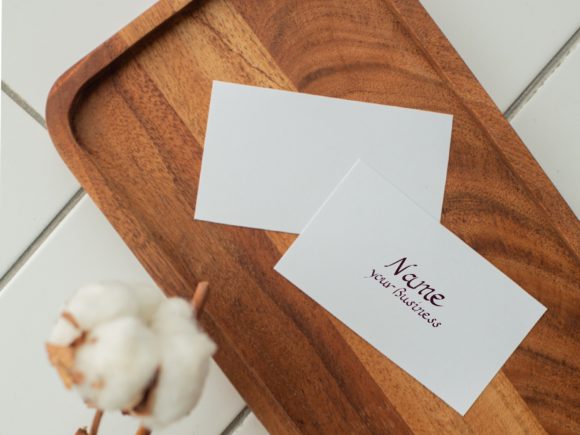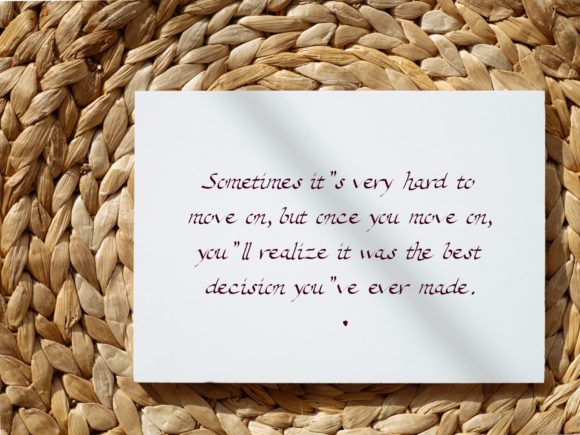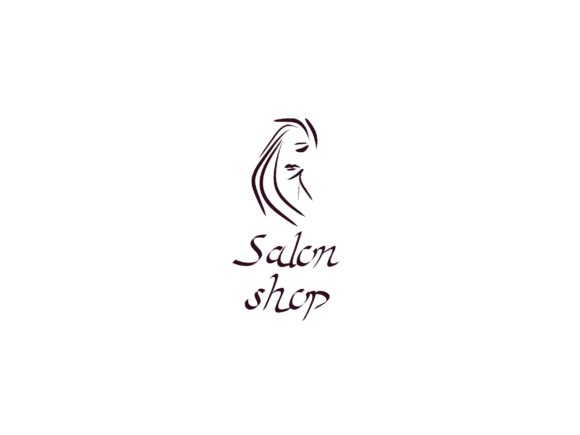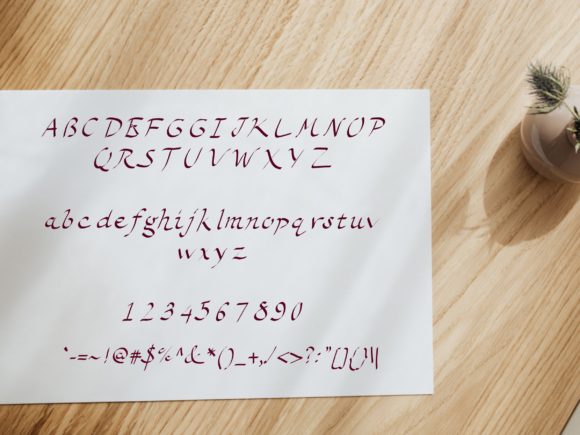
Introduction to Casual Luxe Font
Have you ever stumbled upon the perfect font while working on a creative project, and it elevates the entire design to a whole new level? That’s exactly what happens when you discover the Casual Luxe Font. This elegant scripT font is a game-changer for designers who want to add a touch of sophistication to their work.
As a valuable design resource, the Casual Luxe Font is perfect for creating high-quality logos, cards, and other projects that require impressive typography. With its balanced and varied style, this font is sure to impress. Whether you’re a seasoned designer or just starting out, the Casual Luxe Font is an essential addition to your design arsenal.
Key Features of Casual Luxe Font
- High-quality design resource perfect for creative projects, offering a sophisticated and elegant feel.
- Unique characteristic: A subtle, hand-drawn feel that adds a touch of personality to any design project.
Honest Review: Casual Luxe Font
As a designer, I’m always on the lookout for high-quality design resources that can elevate my creative projects. Recently, I stumbled upon the Casual Luxe Font, and I must say, it’s been a game-changer for me.
- Unique and stylish aesthetic that’s perfect for modern designs
- Great for creating professional-looking headings and titles in my designs
However, I did encounter a few limitations with this font. 🚨
- Limited character set, which might not be suitable for long-form content
- Not ideal for small text sizes, as it can get quite pixelated
Overall, I’m really impressed with the Casual Luxe Font. Its unique style and high-quality design make it an excellent addition to any designer’s toolkit. With a few minor limitations in mind, I’d highly recommend this font for any creative project that requires a touch of elegance and sophistication.
Casual Luxe Font
Tips for Getting the Most Out of the Casual Luxe Font
Use the Casual Luxe Font in combination with a transparent background to create a clean and modern design. Experiment with different font sizes, colors, and combinations to find the perfect look for your creative project. You can also use this font in conjunction with other design resources to create a cohesive and high-quality design.
The Casual Luxe Font is ideal for use in branding materials, such as logos, business cards, and letterheads. It’s also a great choice for use in web design, social media graphics, and other digital design projects. With its high-quality, free download, and transparent background, this font is a valuable design resource for any creative project.
What is the recommended font size for using the Casual Luxe Font in a design project?
The recommended font size for using the Casual Luxe Font in a design project will depend on the specific design and the intended audience. However, as a general rule of thumb, it is recommended to use font sizes between 12 and 24 points for body text, and 48 points or larger for headings and titles. This will ensure that the font is legible and visually appealing in your design project.